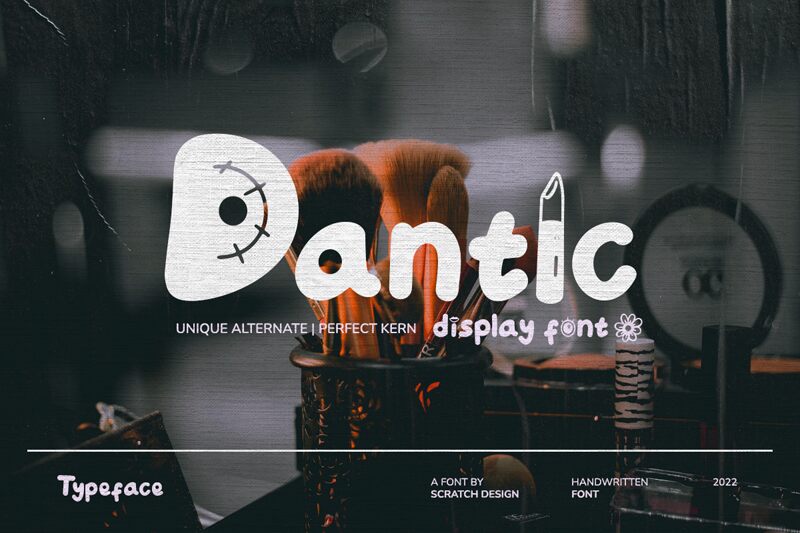
Dantic Regular
Dantic, a whimsical masterpiece from Scratch Design, is a display font that turns every word into a playful narrative. Its cartoon style evokes a sense of fun and creativity, crafted with bold weight to capture attention and add character to any design. With smooth curves and bubbly forms reminiscent of classic animation aesthetics, Dantic brings an inviting charisma to the table.
Visually, Dantic's letters are plump and friendly, with rounded edges that suggest a casual yet assertive tone perfectly suited for engaging headlines or eye-catching logos. Each character in this font dances with life, making it an ideal candidate for projects aimed at younger audiences or those that embrace a lighthearted theme.
The aesthetic appeal of Dantic lies in its ability to blend simplicity with expressiveness; it's uncluttered yet full of personality. Whether incorporated into children’s book titles, gaming interfaces, or festive event branding, this font maintains legibility while adding an element of joy.
In conclusion, the ingenuity behind Dantic makes it not just a typeface but an essential tool for designers looking to infuse their work with vibrancy and warmth. Its suitability stretches across various creative spectrums where the intent is to delight and engage viewers through typographic charm.